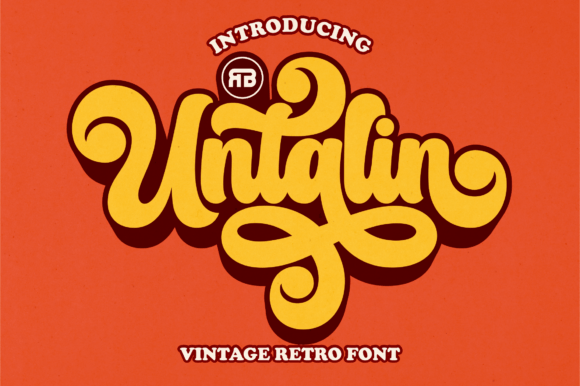
Attention all typography enthusiasts! Are you on the lookout for the perfect font that encapsulates the vintage charm of the 70s and 80s? Look no further than Untalin Font, a script font family created by the expert designers at RGB Studio.
Untalin Font is not just any ordinary font; it is the best font for vinyl lettering on the market. This font has been expertly crafted to embody the retro typography and lettering style of the 70s and 80s, combined with a bold and captivating modern twist. It is the perfect font for those who want to create designs that stand out from the crowd.
With its vintage retro design, Untalin Font is incredibly versatile and can be used for a wide range of design projects. Whether you're designing a retro-themed logo, a vintage t-shirt, or a stunning book cover, this font has got you covered. Its unique style is also perfect for creating eye-catching signage, packaging, and posters that are sure to grab the attention of passersby.
One of the best things about Untalin Font is that it is PUA encoded, meaning that you can easily access all of the glyphs and swashes that come with the font. This makes it incredibly easy to use and customize, no matter what your design needs may be.
In short, Untalin Font is a must-have for anyone looking to create vintage and retro designs that truly capture the essence of the 70s and 80s. Don't settle for mediocre fonts that fail to capture the attention of your audience; choose Untalin Font and elevate your designs to the next level.